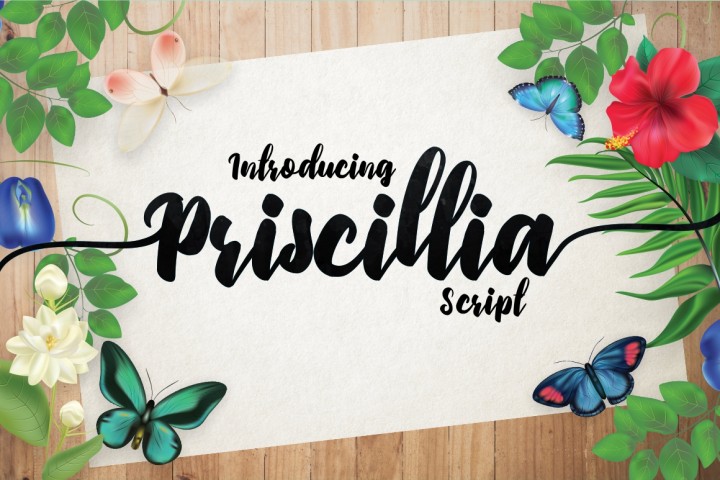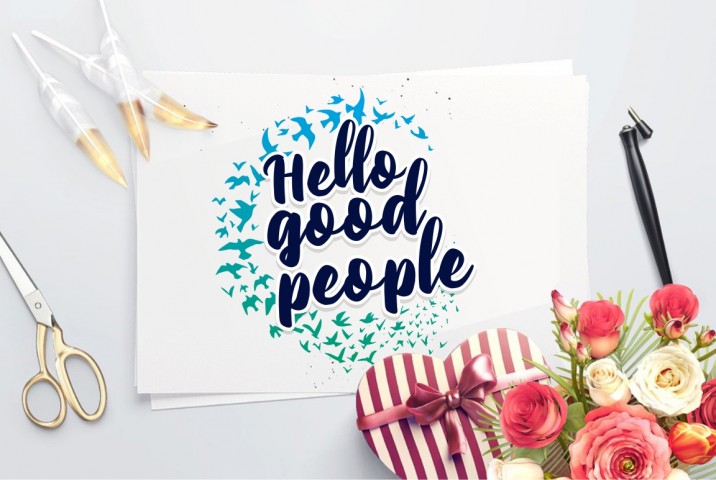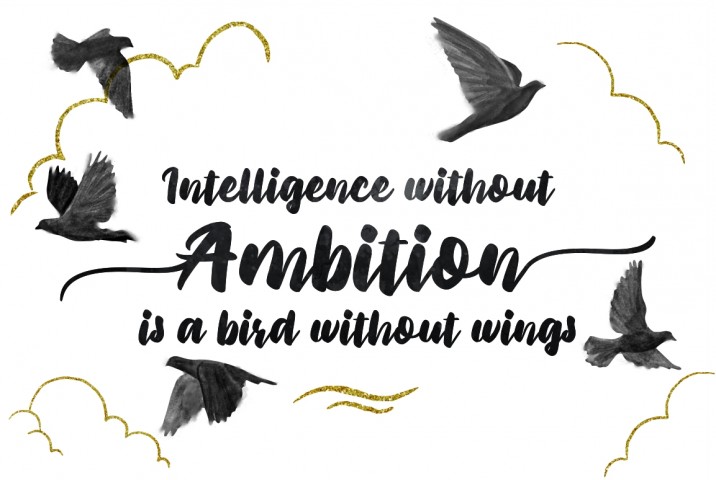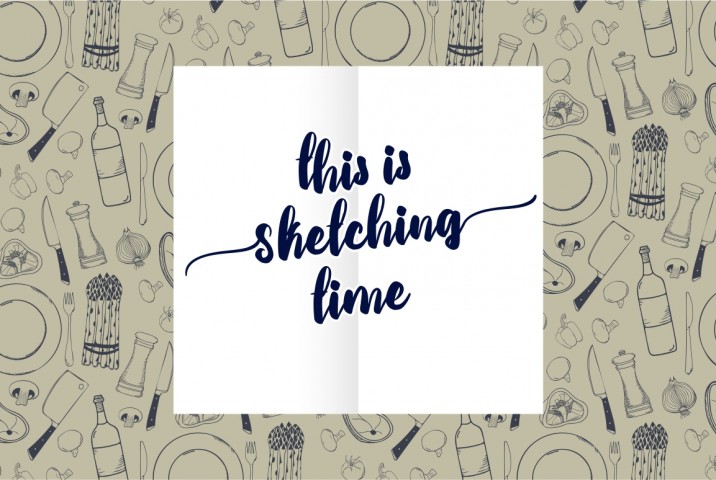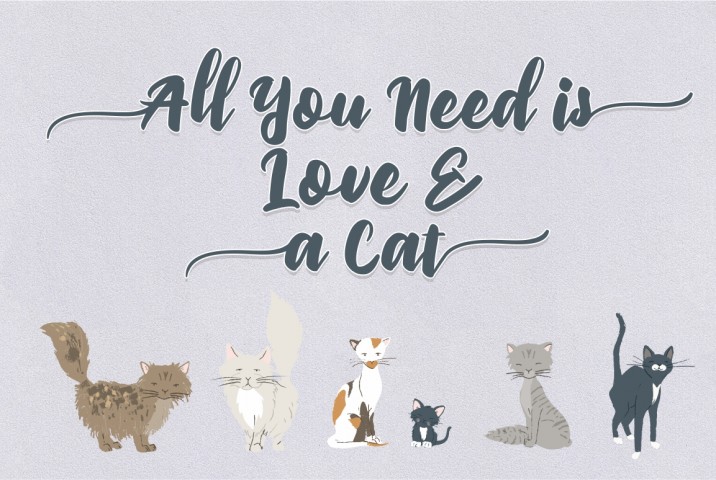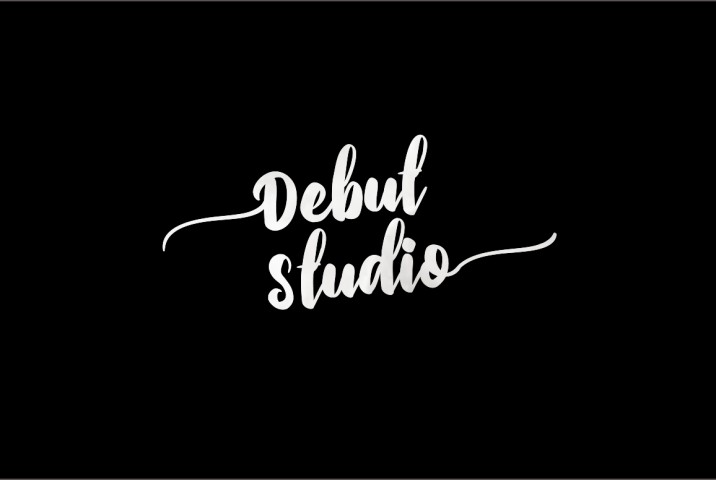
Priscillia Font
About Priscillia Font
Priscillia Script is a hand lettered font, created on paper with a brush pen. The result after digitizing the font is a cute, smooth brush that works great for many different types of designs.